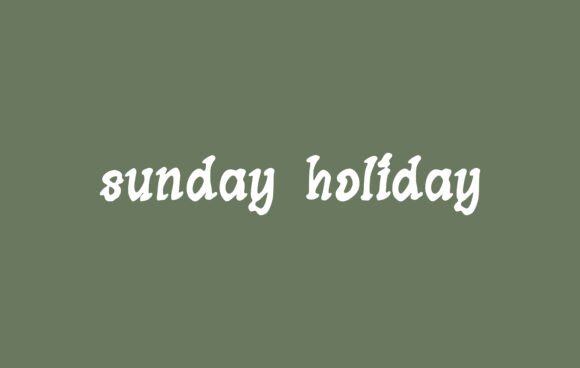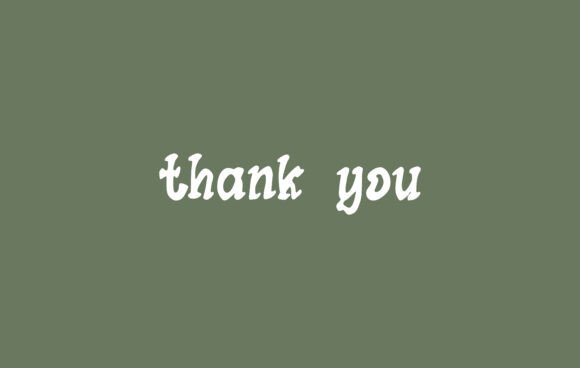
Introduction to Johanna Font
Have you ever been stuck on a creative project, desperately searching for the perfect font to bring your ideas to life? The struggle is real, but today we’re excited to introduce you to a game-changing design resource that’s sure to elevate your work: the Johanna Font. This stunning handwritten font is more than just a pretty face – it’s a high-quality design element that’s perfect for adding a touch of romance and elegance to your creative projects.
With its transparent background and effortless legibility, the Johanna Font is a free download waiting to become your new best friend. Whether you’re working on a magazine headline, social media post, or wedding invitation, this versatile font is sure to impress. Its versatility and beauty make it a valuable asset for designers looking to add a unique touch to their work.
Key Features of Johanna Font
- High-quality design resource with a beautiful, elegant script style.
- Designed with a high level of detail, making it perfect for projects that require a touch of sophistication and refinement.
- Comes in a single weight, making it easy to use and integrate into your design without worrying about font weight variations.
Honest Review: Johanna Font
As a designer, I’m always on the lookout for high-quality fonts to elevate my creative projects. Recently, I stumbled upon the Johanna Font, and I must say, it’s been a game-changer. Here’s my honest review.
- High-quality design: The Johanna Font is incredibly well-designed, with a beautiful, elegant script that adds a touch of sophistication to any project.
- Limited character set: While the font is beautiful, it’s limited in its character set. This may not be ideal for projects that require a lot of text.
- No bold or italic options: Unfortunately, Johanna Font doesn’t come with bold or italic options, which can be a limitation for some projects.
Overall, I’m impressed with the Johanna Font. While it may have some limitations, its high-quality design and transparent background make it a valuable resource for any designer. It’s perfect for creative projects where a touch of elegance is needed.
Tips for Getting the Most Out of Johanna Font
To get the most out of Johanna Font, experiment with different font sizes, colors, and combinations to create unique and visually appealing designs. You can also use it in conjunction with other design elements to add depth and interest to your creative project.
Johanna Font is ideal for use in creative projects such as logos, business cards, and brochures. Its high-quality design and transparent background make it a popular choice among designers and artists.
Alternatives to Johanna Font
A high-quality script font perfect for creative projects that require a touch of elegance. Alex Brush is a beautiful font that can be used for a variety of purposes, from wedding invitations to branding materials. Its high-quality design and transparent background make it an ideal choice for designers who want to add a personal touch to their work. When to use: Wedding invitations, branding materials, and any other project that requires a sophisticated and elegant look.
Comparison to Johanna Font: Alex Brush is a more elegant and refined alternative to Johanna Font, making it suitable for projects that require a touch of sophistication.
A modern script font designed for designers who want to add a creative and unique touch to their projects. Carolyna Pro is a high-quality font that can be used for a variety of purposes, from logos to packaging materials. Its transparent background and high-quality design make it an ideal choice for designers who want to create a lasting impression. When to use: Logos, packaging materials, and any other project that requires a modern and creative look.